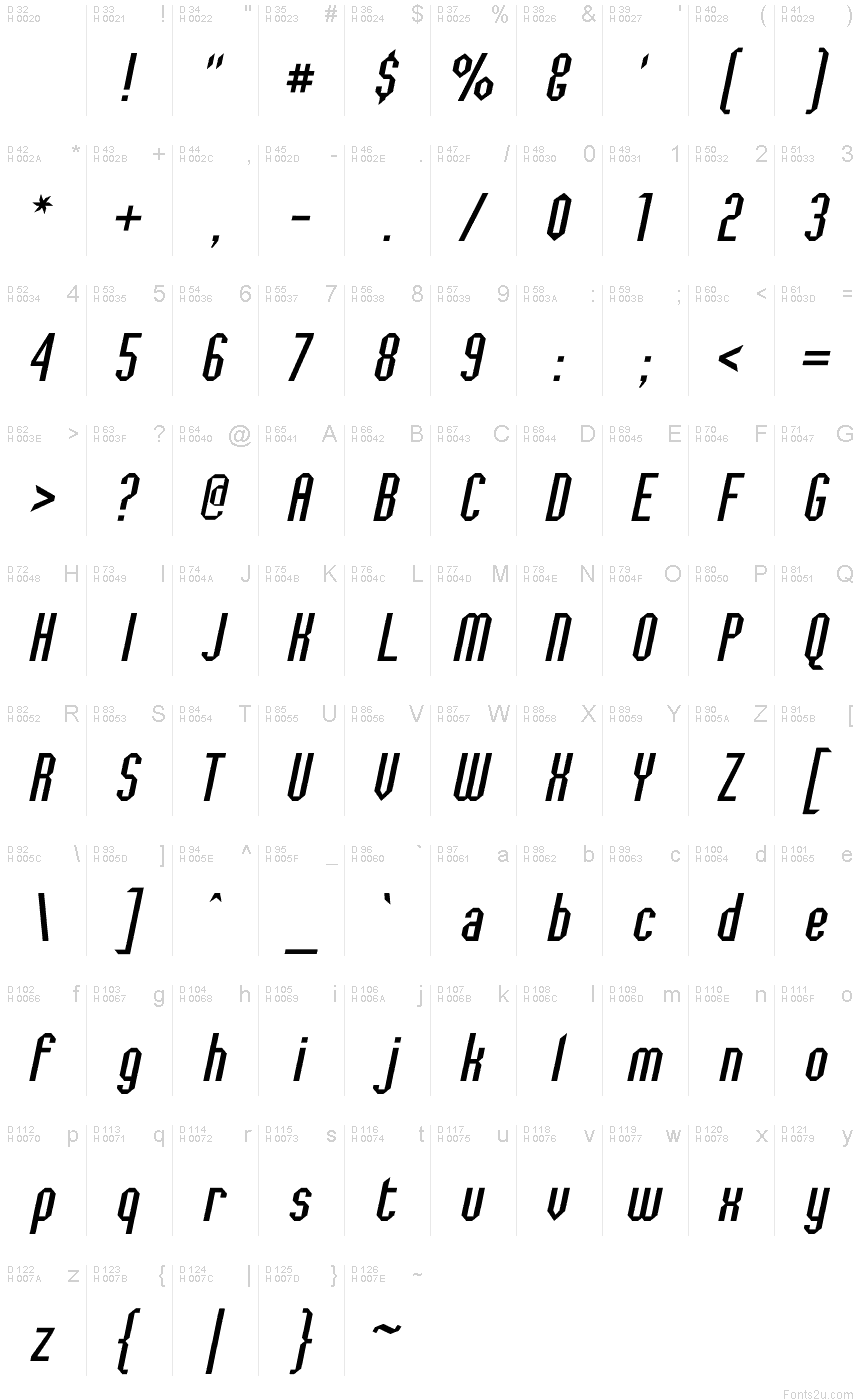
Jagged Dreams Oblique
Jagged Dreams Oblique is a bold, attention-grabbing font that exudes a distinct techno-inspired aesthetic. Designed by Graham Meade, this condensed display font features sharp, angular letterforms that evoke a sense of futuristic dynamism.
The oblique slant adds an extra layer of visual tension, creating a striking and memorable typographic statement. Jagged Dreams Oblique is well-suited for a range of applications, from eye-catching headlines and logos to digital interfaces and promotional materials.
Its powerful, avant-garde style makes it an ideal choice for projects that require a bold, contemporary typographic treatment.
The oblique slant adds an extra layer of visual tension, creating a striking and memorable typographic statement. Jagged Dreams Oblique is well-suited for a range of applications, from eye-catching headlines and logos to digital interfaces and promotional materials.
Its powerful, avant-garde style makes it an ideal choice for projects that require a bold, contemporary typographic treatment.